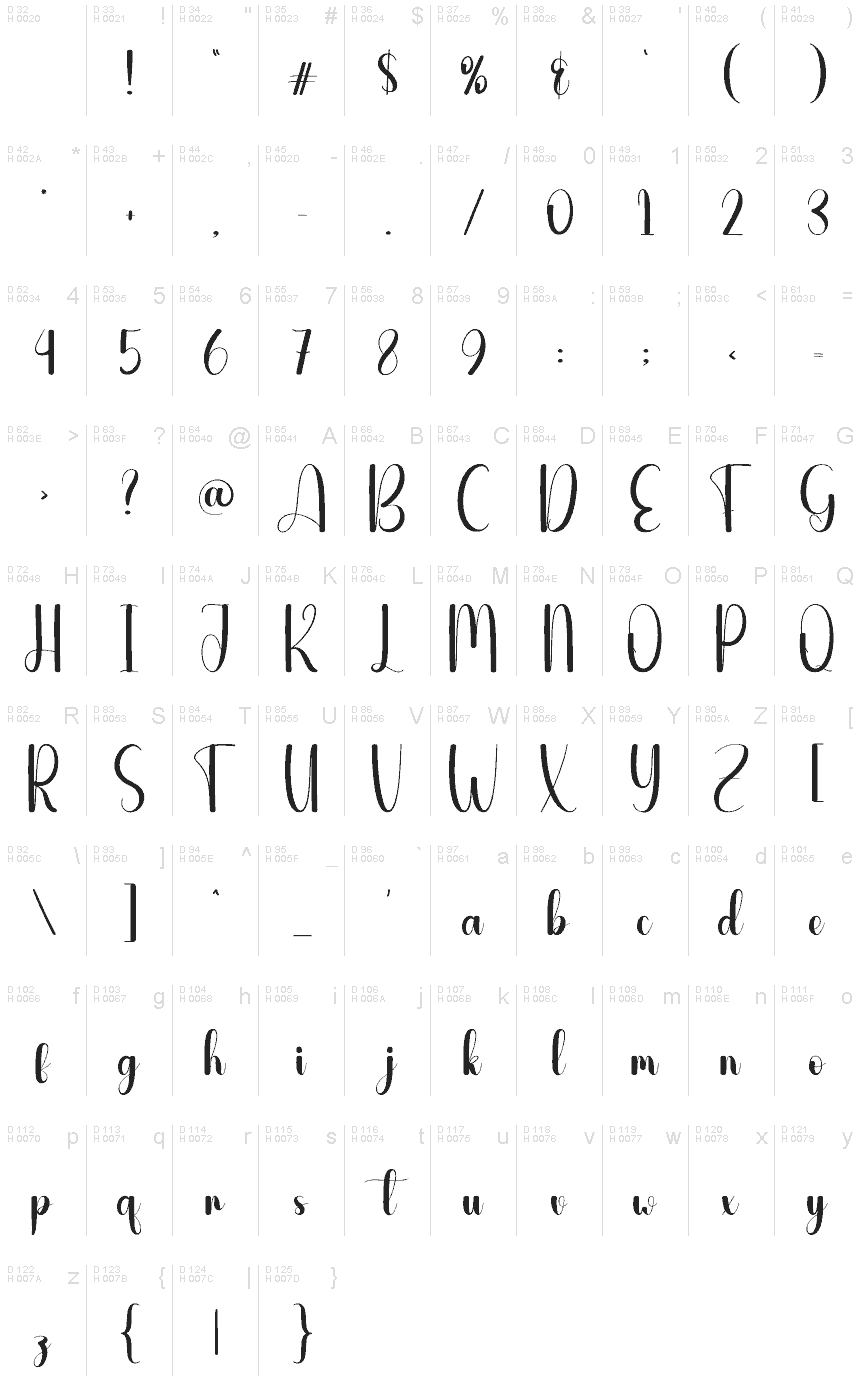
Pointer
Pointer font by Andi Moz is a sweet and friendly handwritten display font. With its condensed width, this typeface conveys elegance and sophistication through its expressive flow. The playful touch of this modern calligraphy style adds an artistic flair to any project, making it the perfect fit for designs that require a whimsical edge.